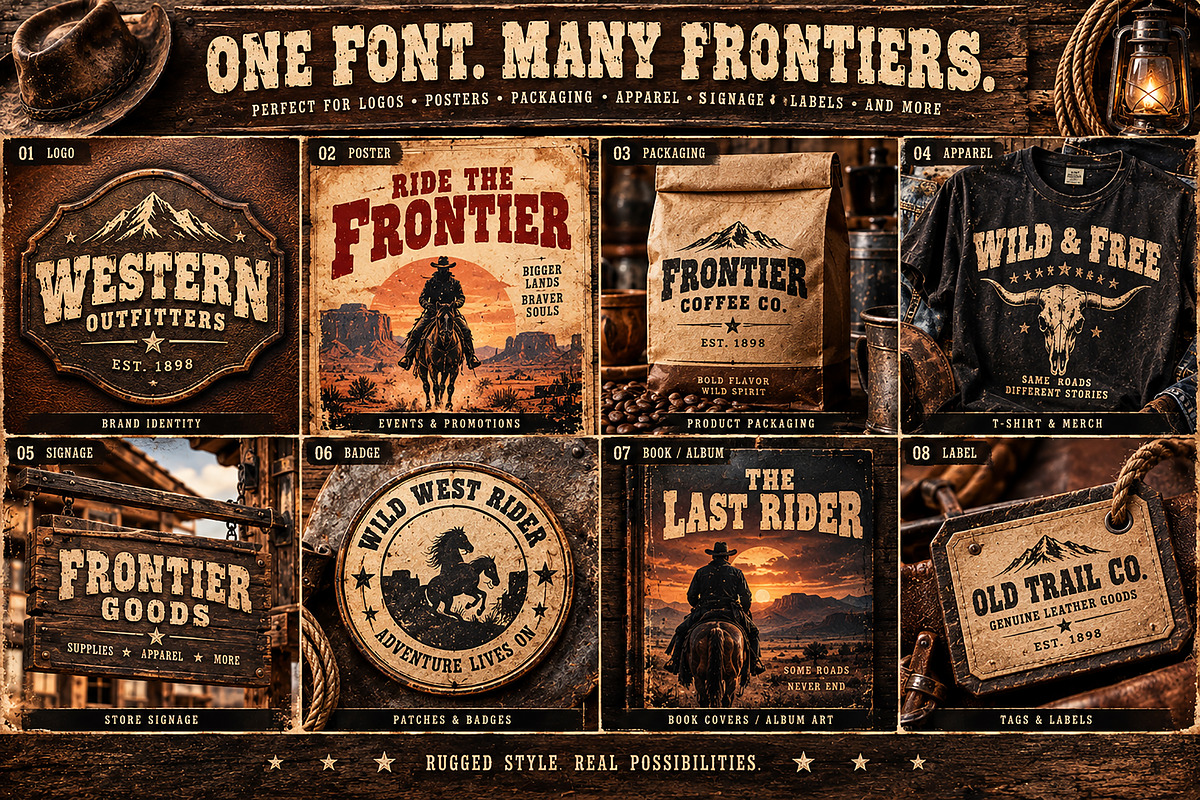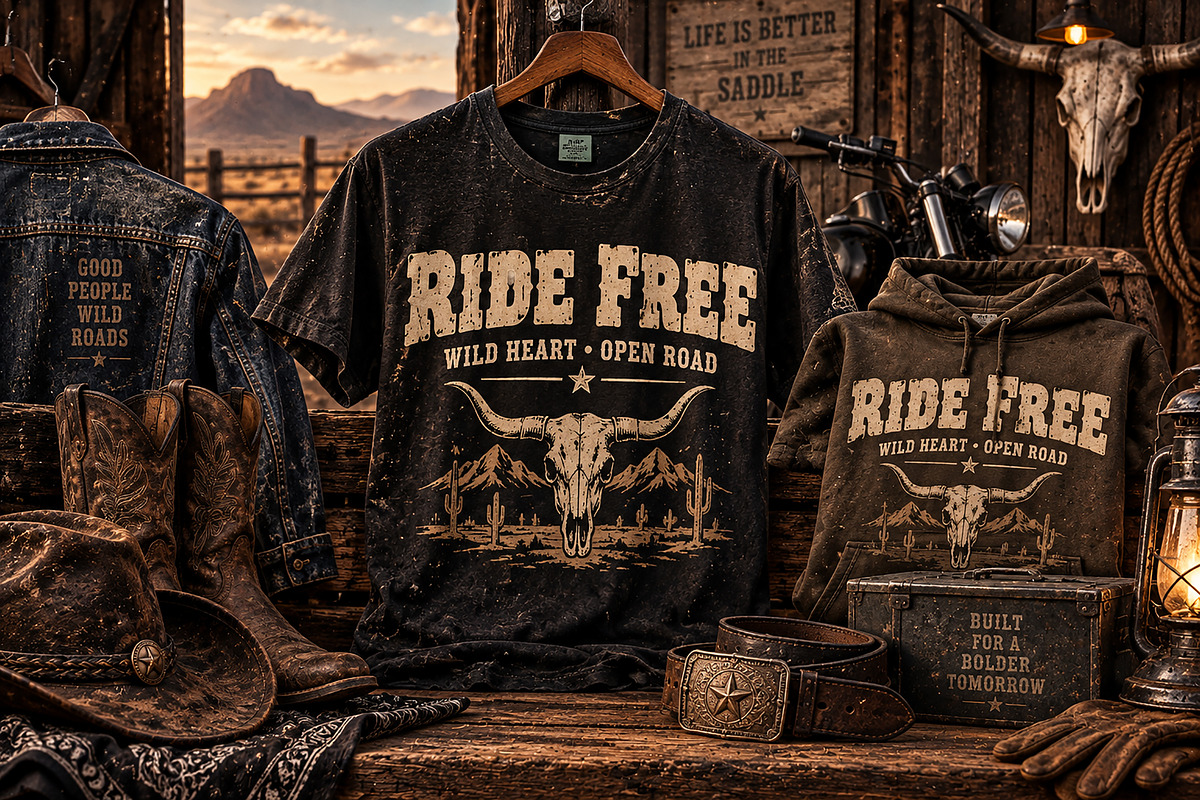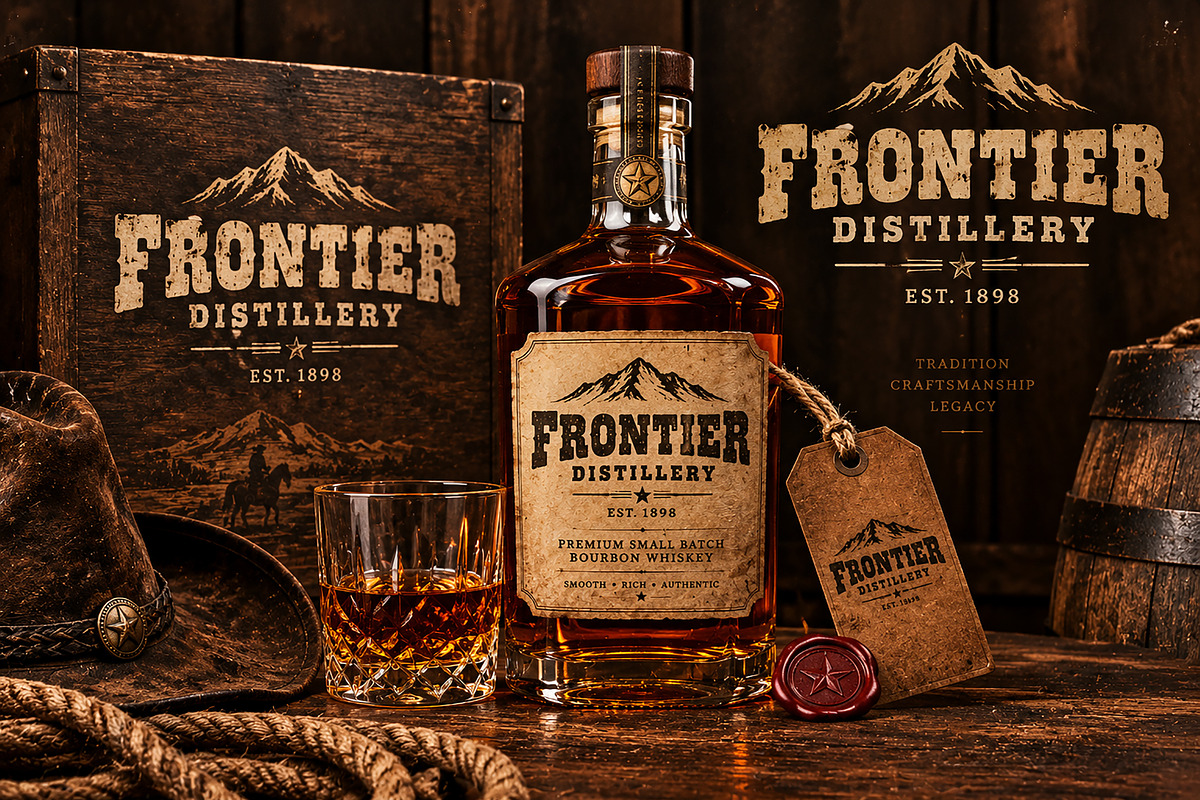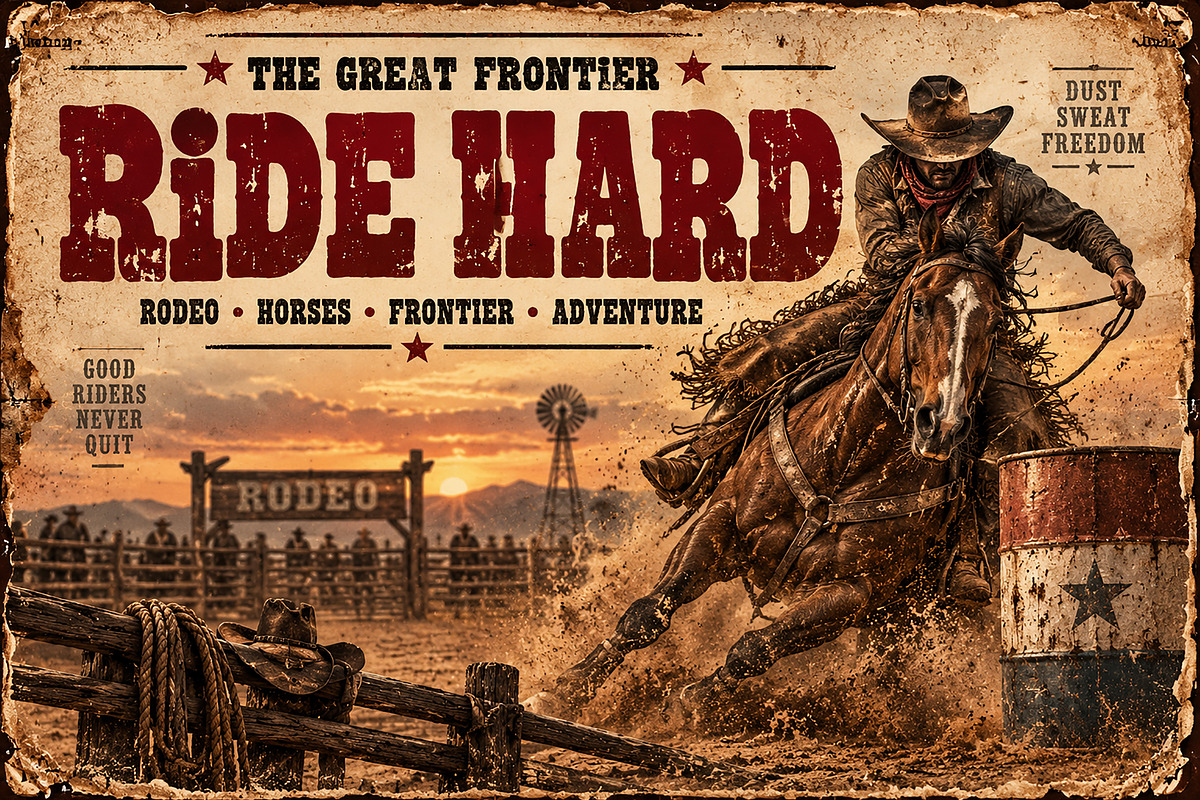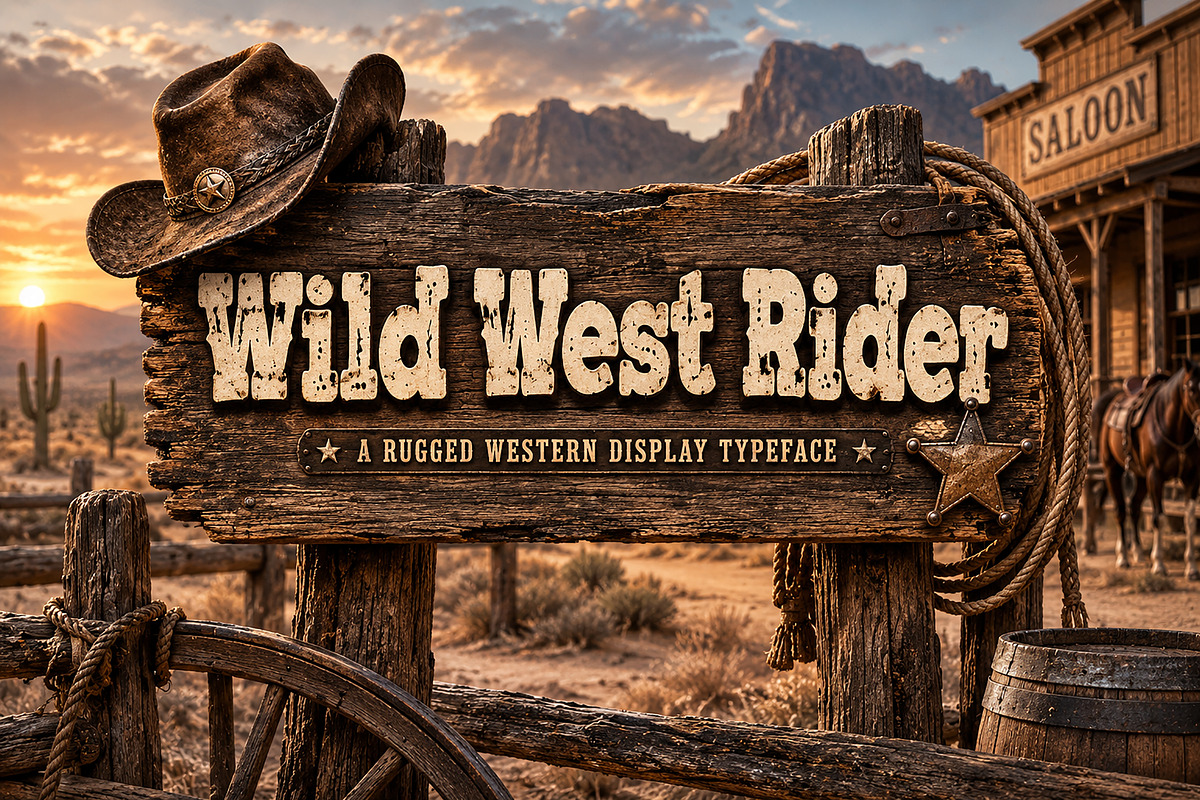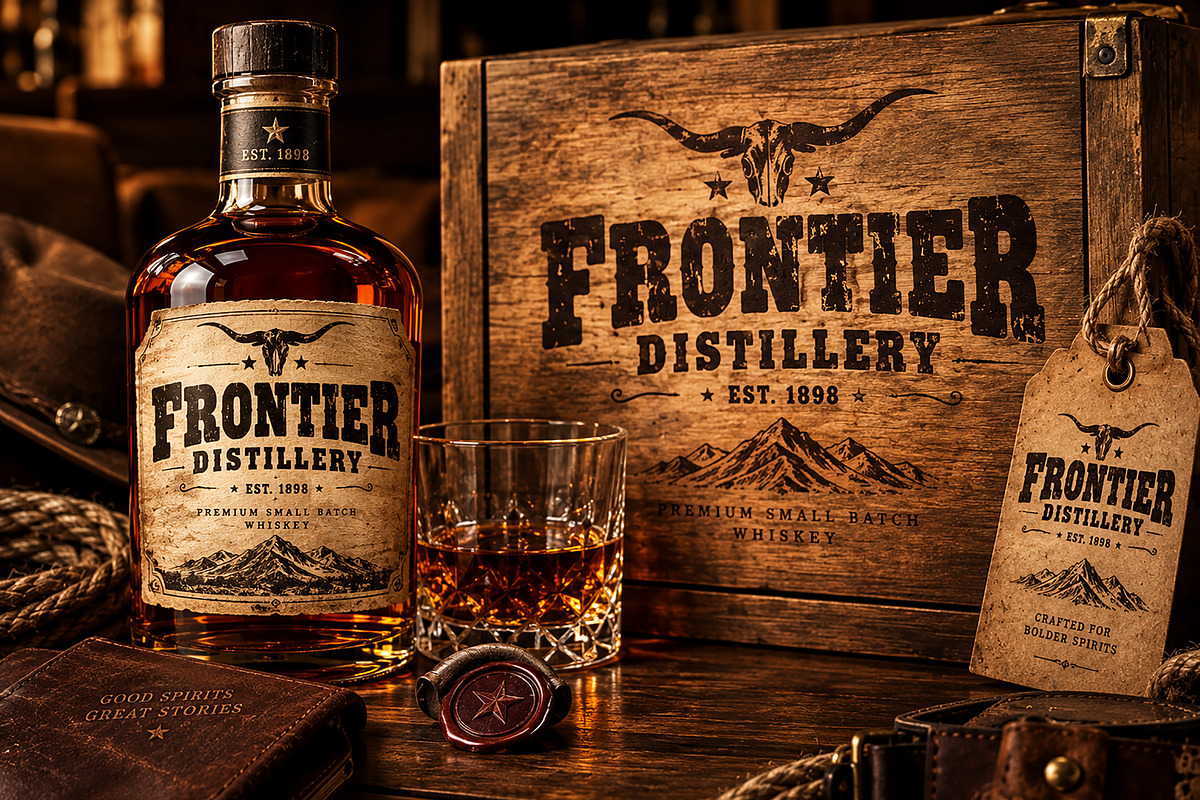
Wild West Rider
Wild West Rider is a bold and rugged Western display font inspired by the timeless spirit of the American frontier. Its heavy, chunky letterforms and distressed vintage texture give your designs an authentic cowboy, rodeo, and old-Western character.
Perfect for creating eye-catching logos, Western branding, posters, rodeo artwork, T-shirts, hoodies, badges, labels, packaging, signage, book covers, album artwork, merchandise, and promotional graphics.
Whether you're designing a vintage ranch identity, cowboy apparel, Western event poster, rustic product label, or adventurous outdoor brand, Wild West Rider brings a strong frontier personality to your typography.
Bold & rugged Western display style
Distressed vintage texture
Strong, highly visible letterforms
Perfect for Western, cowboy & rodeo-themed designs
Great for logos, branding & merchandise
Suitable for both digital and print projects
Ideal for posters, apparel, packaging, labels & signage